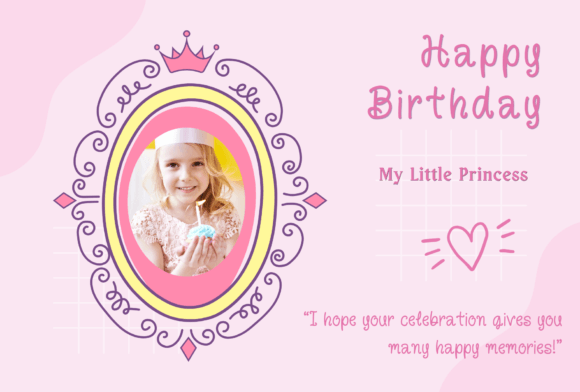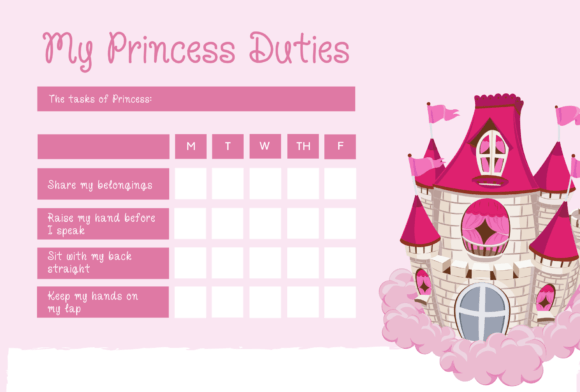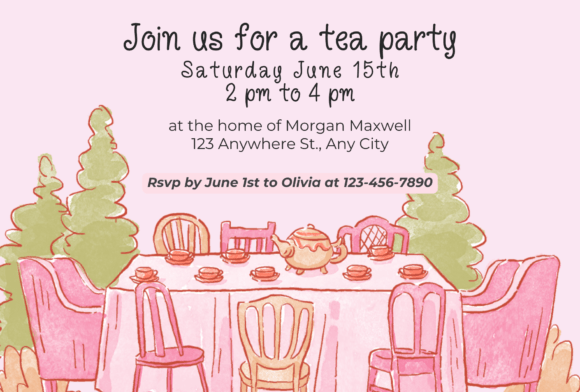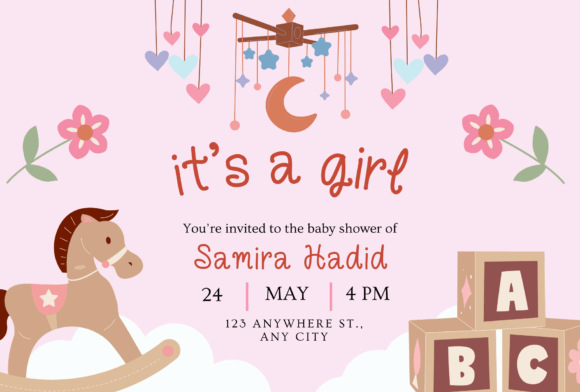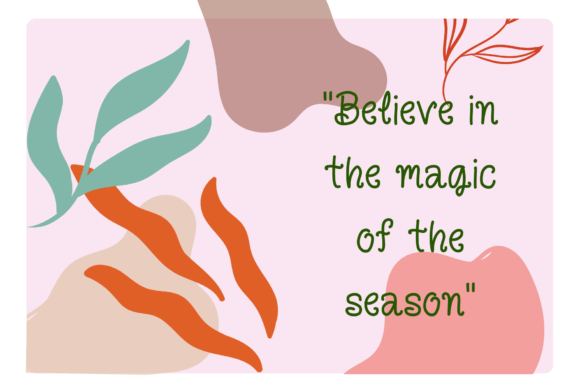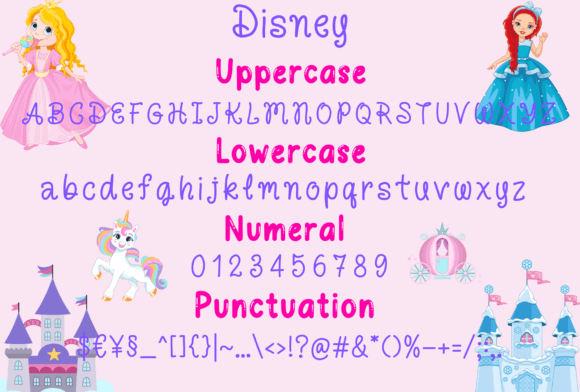
The Magic of Disney Font
Have you ever stumbled upon a font that sparks your creativity and transports you to a world of wonder? For many designers, the moment of discovery is a thrilling experience that sets their imagination ablaze. And for those who are about to uncover the enchanting world of Disney Font, get ready to be swept away by its whimsical charm.
Disney Font is a delightful, handwritten font that adds a touch of magic to any design. With its lively and vivacious vibes, this font is perfect for crafting enchantingly playful designs that bring a smile to people’s faces. Whether it’s a special card, a personalized mug, or a quirky keychain, Disney Font is sure to infuse your creations with a dash of Disney magic.
As a designer, you’ll find Disney Font to be an invaluable asset in your creative arsenal. Its versatility and charm make it an ideal choice for a wide range of projects, from custom crafts to apparel designs. So why settle for ordinary when you can have extraordinary with the Disney Font?
Disney Font Key Features
- Size and Style: The font comes in a range of sizes and styles, from bold and italic to regular and condensed, with font sizes ranging from 8 to 72 points.
- Unique Characteristics: The Disney Font is known for its playful and whimsical feel, with distinctive letterforms and flourishes that evoke the classic Disney aesthetic.
- Font Family: The Disney Font is part of a larger font family that includes various styles and weights, allowing designers to create a cohesive look and feel across different projects.
Disney Font Review
When I first laid eyes on the Disney Font, I was struck by its whimsical charm. The ✨ intricate details and playful flourishes evoke the classic magic of Disney’s golden age. The font’s versatility shines through in its various weights and styles, making it suitable for a wide range of applications, from whimsical children’s books to elegant fine art prints.
One of the Disney Font’s greatest strengths is its ability to transport users to a bygone era of wonder and enchantment. Its ✨ nostalgic appeal is sure to captivate audiences of all ages, making it an excellent choice for projects that require a touch of timeless magic.
Limits and Considerations
- ⚠️ Limited customization options: While the font offers various weights and styles, users may find the customization options to be somewhat limited compared to other fonts.
- ⚠️ Potential overuse: The Disney Font’s unique charm may make it prone to overuse, which could lead to a loss of impact and effectiveness in certain contexts.
In conclusion, the Disney Font is a delightful and enchanting addition to any designer’s toolkit. While it may have some limitations, its ✨ unique charm and nostalgic appeal make it an excellent choice for projects that require a touch of classic Disney magic.
For a more authentic look, use the font in combination with other Disney-themed elements and colors.
For a more authentic look, use the font in combination with other Disney-themed elements and colors, such as pastel shades and vintage textures.
For a more authentic look, use the font in combination with other Disney-themed elements and colors, such as Mickey Mouse icons and red and yellow hues.
Some common use cases for the Disney Font include:
Creating invitations and party decorations for Disney-themed events.
Designing Disney-inspired artwork and prints.
Using the font to create social media graphics and advertisements for Disney movies and TV shows.
Remember to have fun and get creative with the Disney Font!